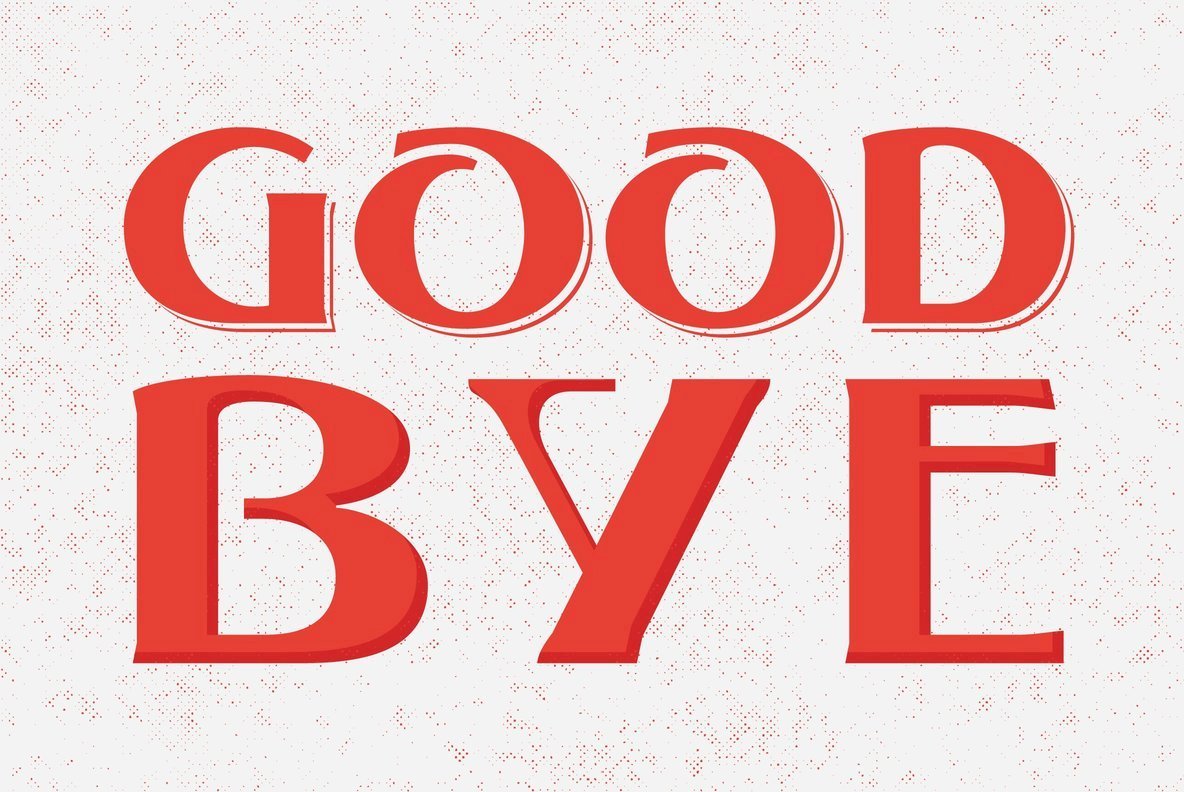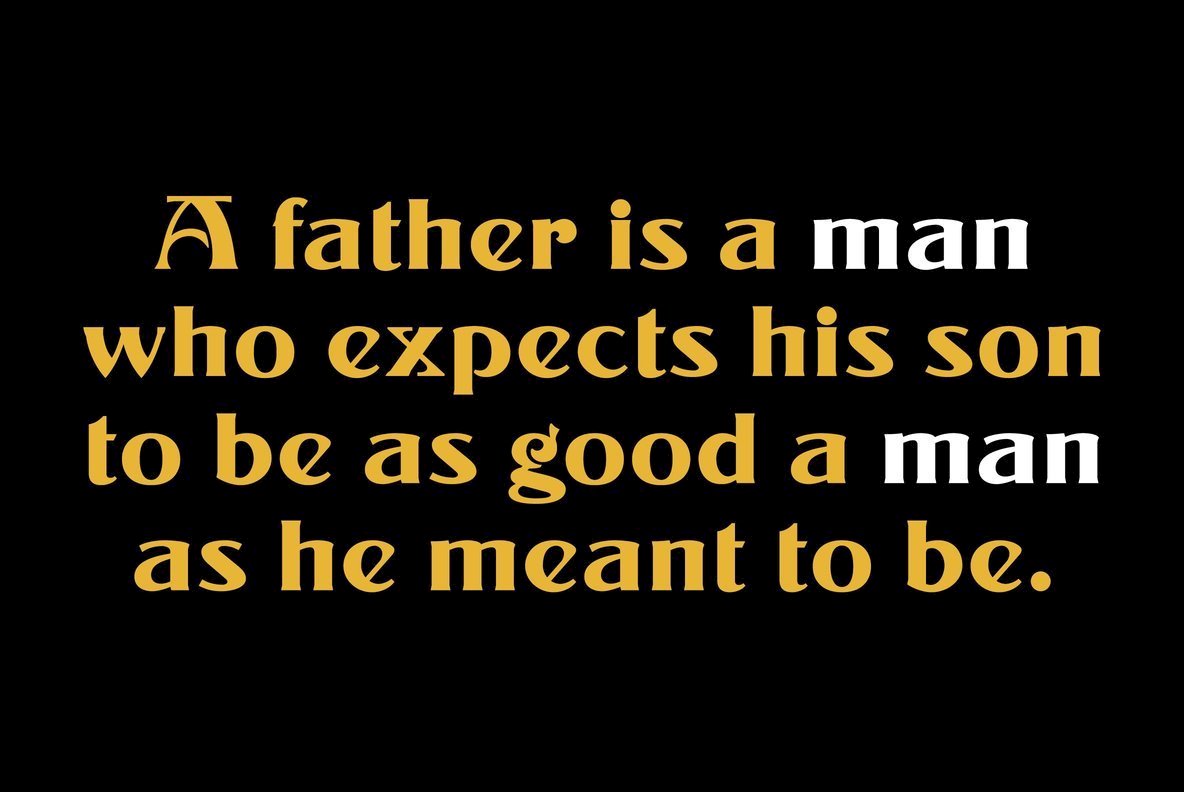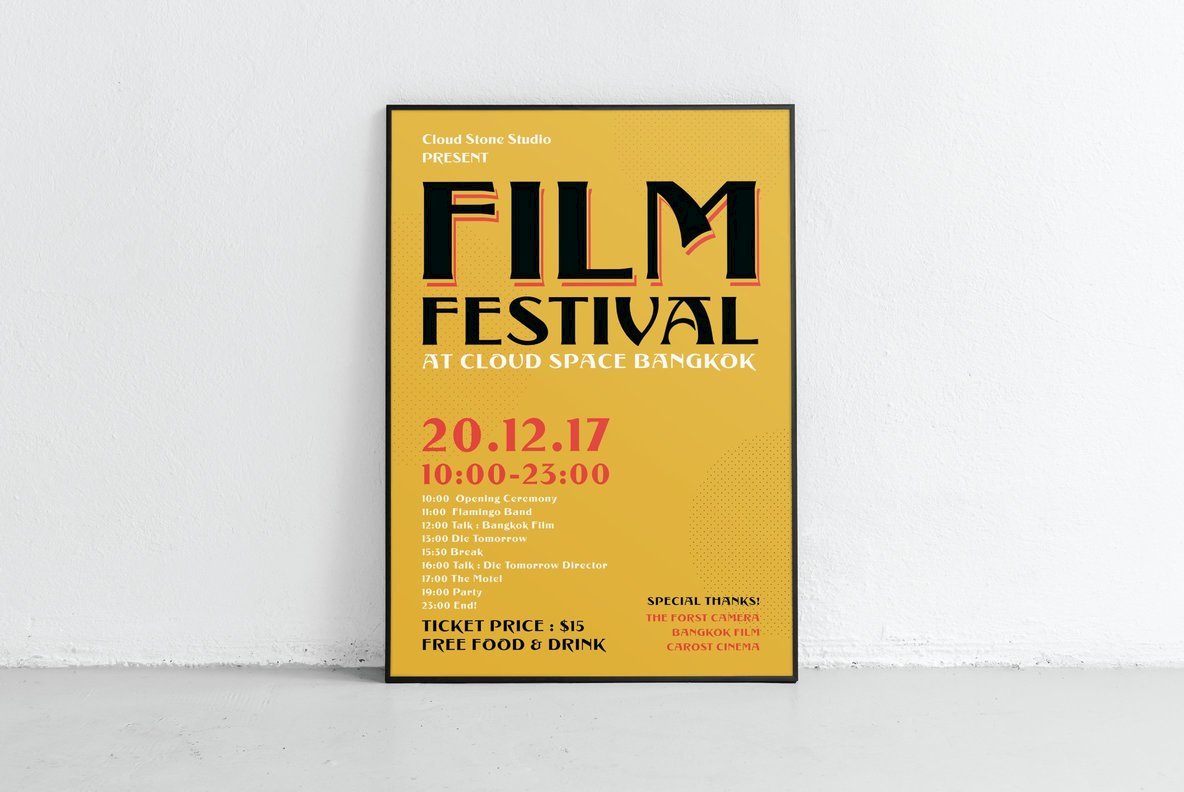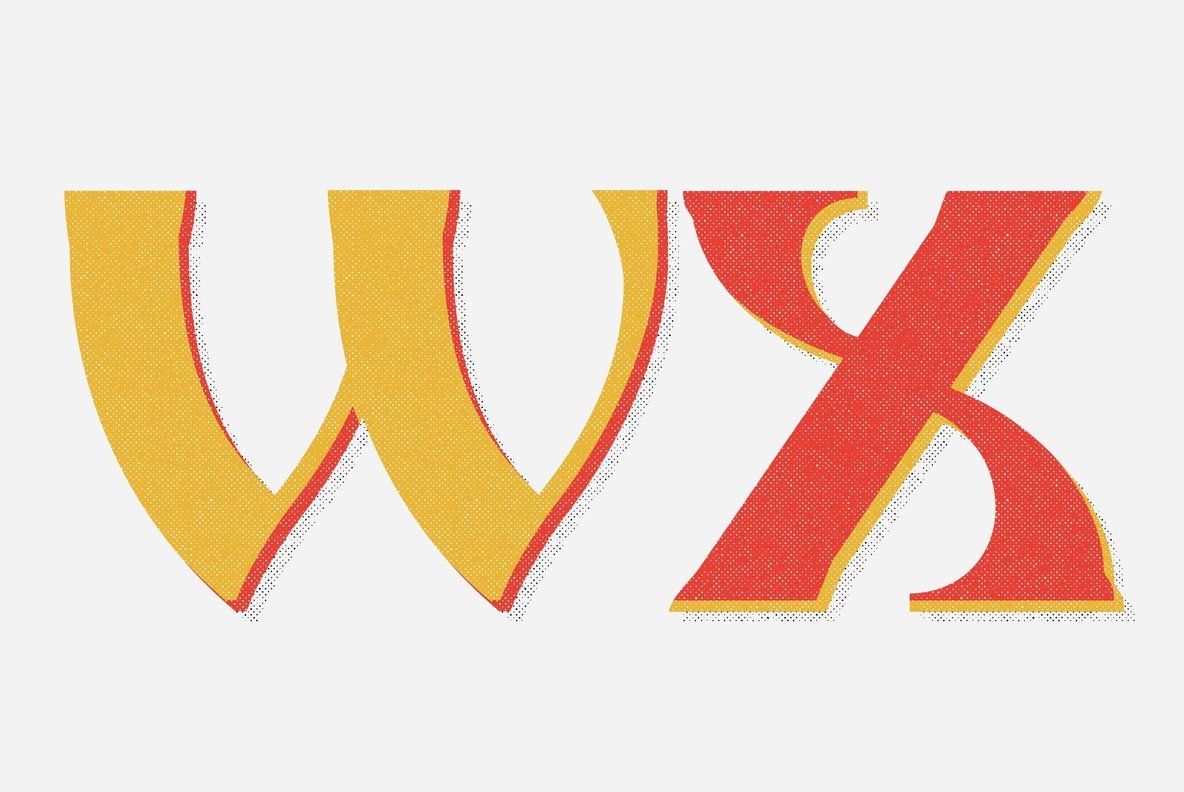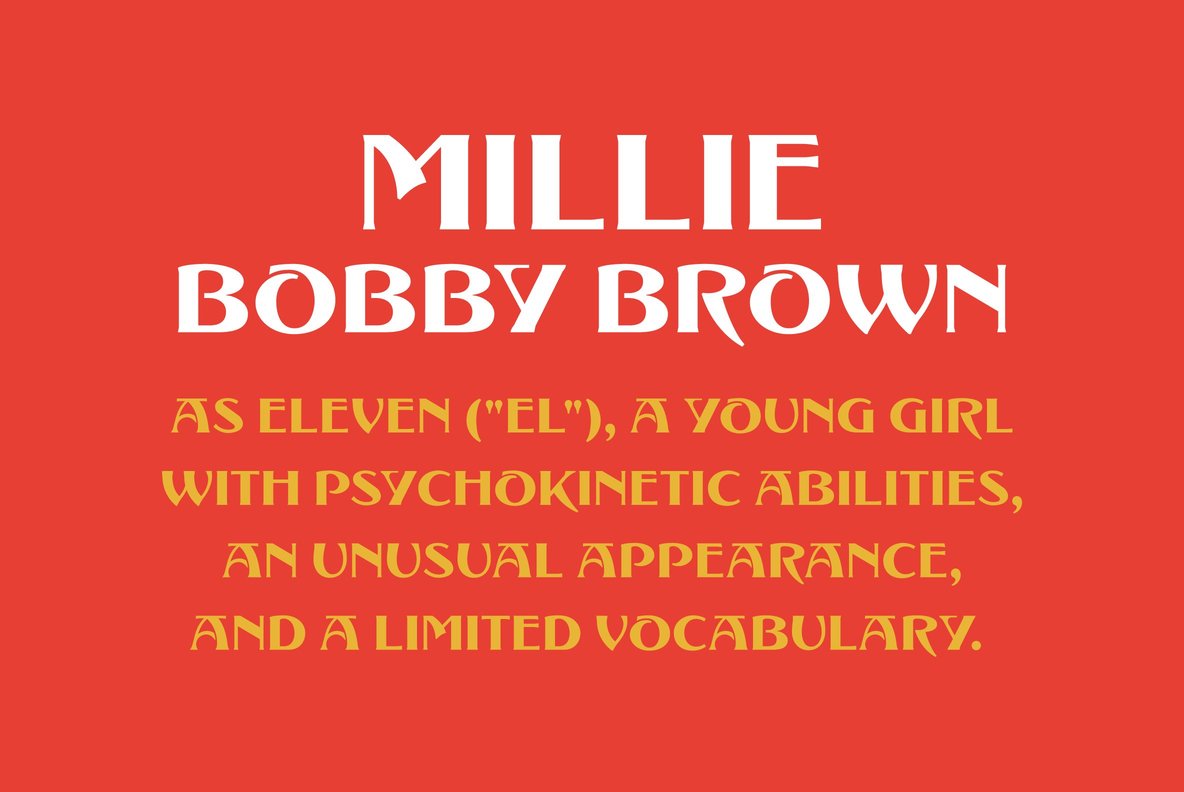
Aldo Manuzio 1
This 1897 Schelter & Giesecke in-house design was carefully redrawn, extended and redesigned for modern usage. It is a remarkable font for book covers, film and video titles, ads and much more.